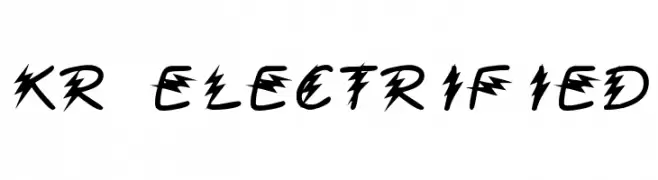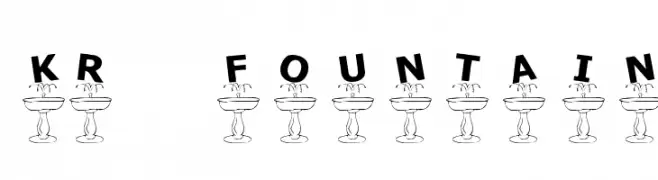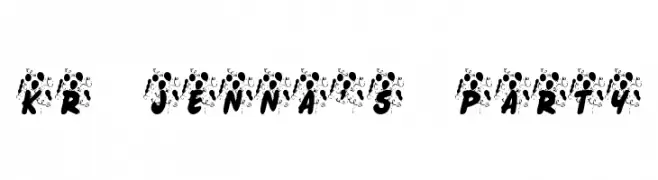
A decorative font with letters inside heart shapes, perfect for romantic themes.
A playful, decorative font with balloon and confetti motifs, perfect for festive projects.
A whimsical and decorative font with characters atop fountain bases, offering a playful and artistic style.
A playful, quirky handwritten font with uneven letterforms and a casual appearance.
A decorative font with snowflake motifs, perfect for festive designs.
Intricate Celtic knot designs form each character, offering a decorative and historical aesthetic.
A decorative font with letters encased in dreamcatcher motifs, featuring feather details.
An electrifying font with bold, jagged edges resembling lightning bolts.